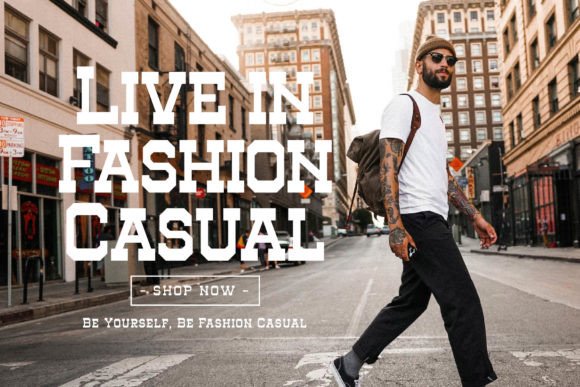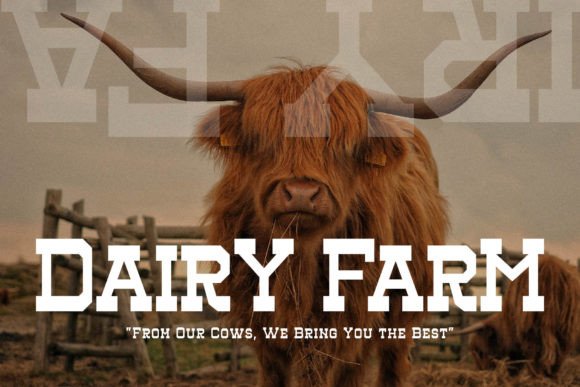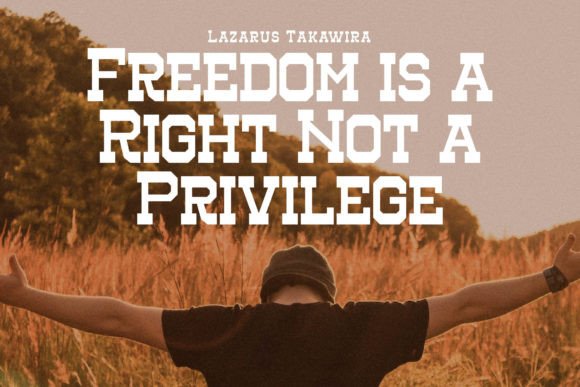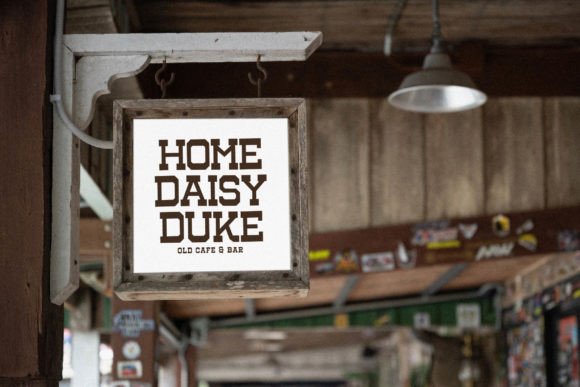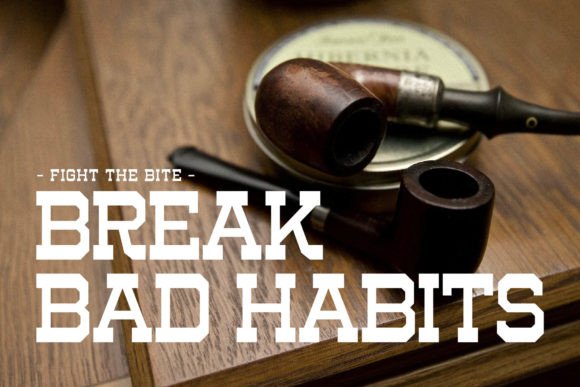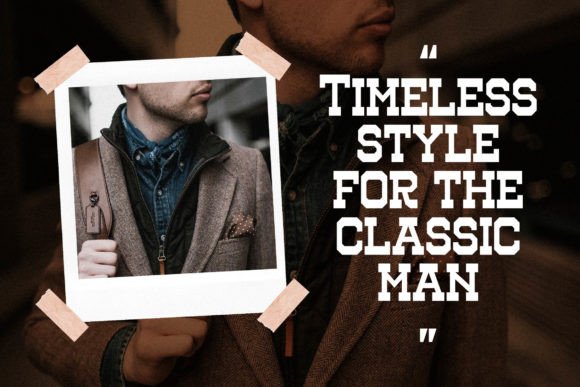
Introduction to Henk Singer Font
Henk Singer is a modern and stylish slab serif font that has its own unique appearance.
This typeface is perfect for an elegant and luxurious logo, fashion brands, magazines, apparel, lettering, quotes, and so much more .